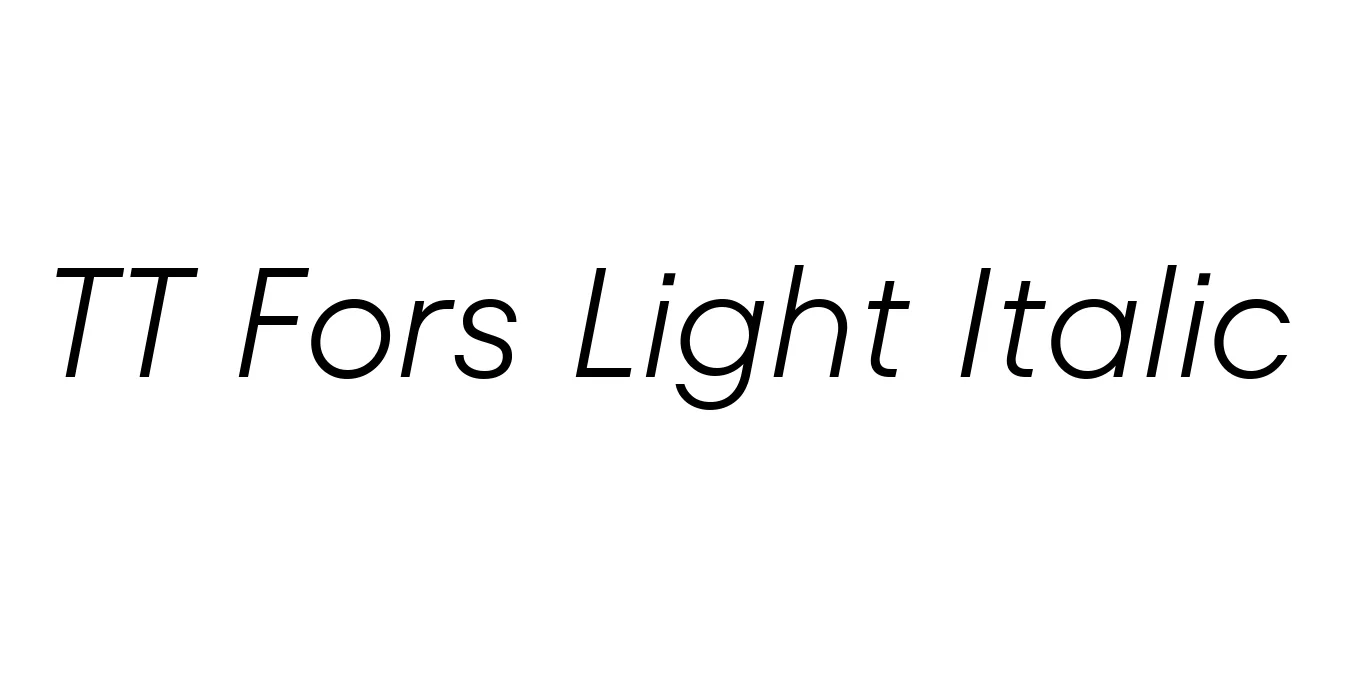
TT Fors Light Italic
Designed by TypeType Team (Pavel Emelyanov, Ivan Gladkikh, Yulia Gonina)
| Category | Geometric Sans Serif |
TT Fors Light Italic is a sophisticated geometric sans-serif developed by the TypeType foundry, engineered to bridge the gap between early 20th-century modernist principles and contemporary digital requirements. Conceived as a versatile tool for modern branding, the typeface is rooted in the mathematical precision of geometric shapes while incorporating optical adjustments that render it more functional than its historical predecessors. This specific Light Italic weight offers an airy, minimalist aesthetic, providing a sense of breathability and elegance within a structural framework designed for high-performance interface and editorial layouts.
Expert analysis of the letterforms reveals a generous x-height that significantly bolsters legibility despite the slender stroke profile. The 11-degree slant is meticulously balanced to provide a dynamic cursive flow without distorting the typeface’s geometric integrity. Wide, open counters and distinct terminals prevent the 'Light' weight from becoming visually brittle at smaller point sizes. Furthermore, the optical compensation applied to the stroke junctions ensures a uniform visual rhythm, while the subtle stylistic alternates provide designers with the flexibility to shift between a purely functional tone and a more expressive, character-driven narrative.
TT Fors Light Italic Best Uses
Perfect for pull quotes, captions, and elegant sidebar text in high-end magazines.
Ideal for minimalist logos, taglines, and luxury branding elements.
Excellent for secondary UI elements and micro-interactions requiring a subtle touch.
Suited for sophisticated subheaders or emphasizing key philosophical textual content.